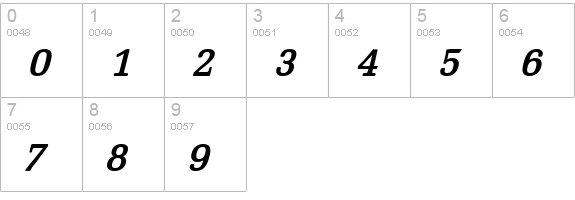
Bid Roman Bold Italic is a strong, high-contrast, italic variant in the Bid typeface family \xE2\x80\x94 well suited to headlines, attention-grabbing titles, and strong calls-to-action.
Bid Roman Bold Italic font is a stunning and versatile typeface that exudes elegance and sophistication. Its bold and italic design adds a touch of flair to any project, making it perfect for headlines, titles, and other prominent text. The combination of strong lines and graceful curves creates a unique visual impact that commands attention. This font is not only visually striking but also highly legible, ensuring that your message is conveyed clearly and effectively. Whether you're designing a poster, logo, or website, Bid Roman Bold Italic font is sure to make a lasting impression. Best of all, Bid Roman Bold Italic font is available for free download at FontsMarket.com. This means you can easily access this beautiful typeface and incorporate it into your projects without any cost. Don't miss out on the opportunity to elevate your designs with this exceptional font. Download Bid Roman Bold Italic today and see the difference it can make!